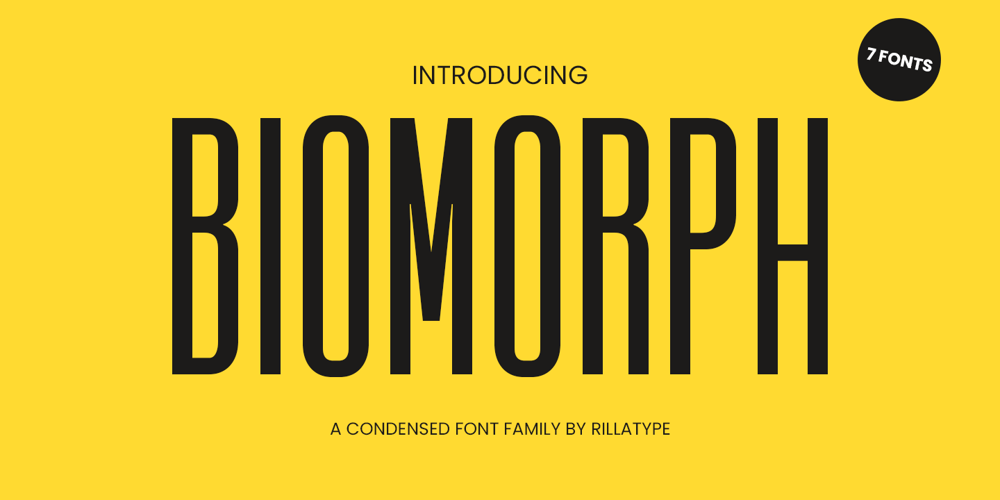
Biomorph Font Family was designed by Gustian Agung Asprilla and published by Rillatype. Biomorph contains 7 styles and family package options. Proudly Introducing, Biomorph! Biomorph is a brand new condensed sans font family released by us. This font is very suitable for your projects especially for brandingm publishing, titles, book, magazine, website, etc. Biomorph is font family that comes from thin, extra light, light, regular, medium, semibold, and bold version, with all of these styles gives yoiu freedom to design as you like!